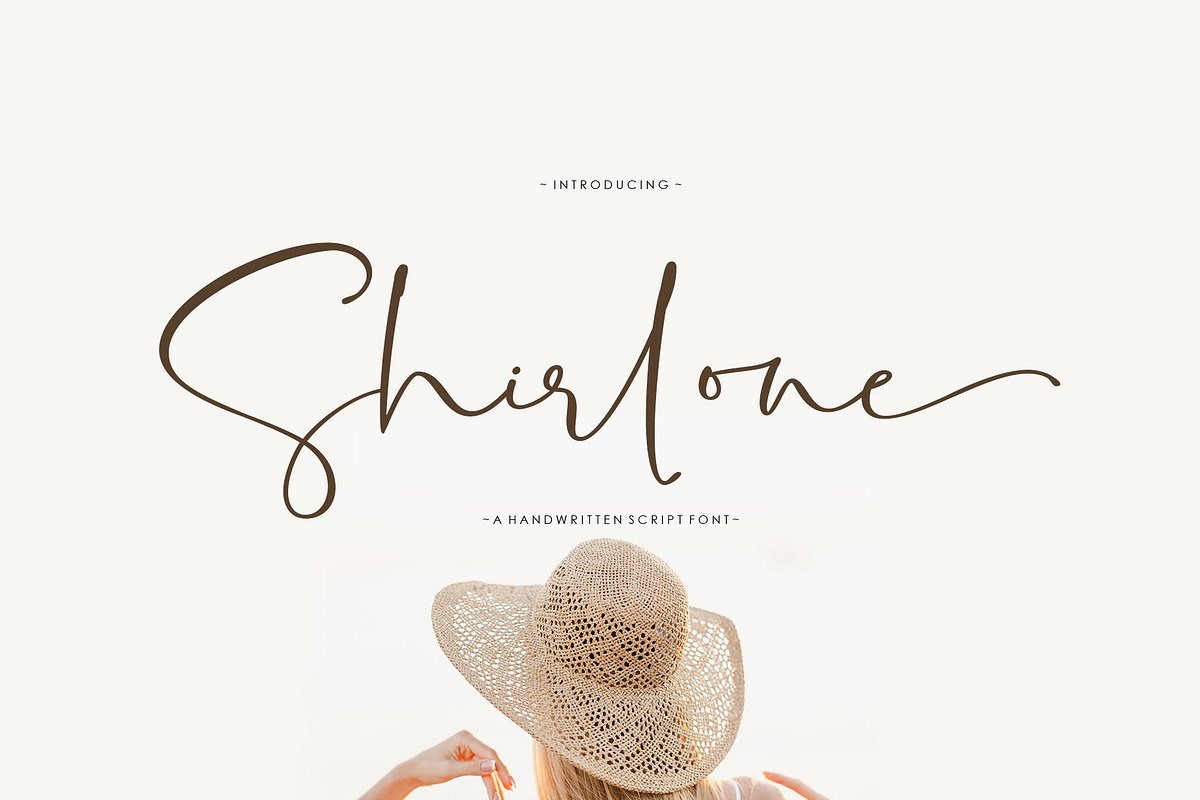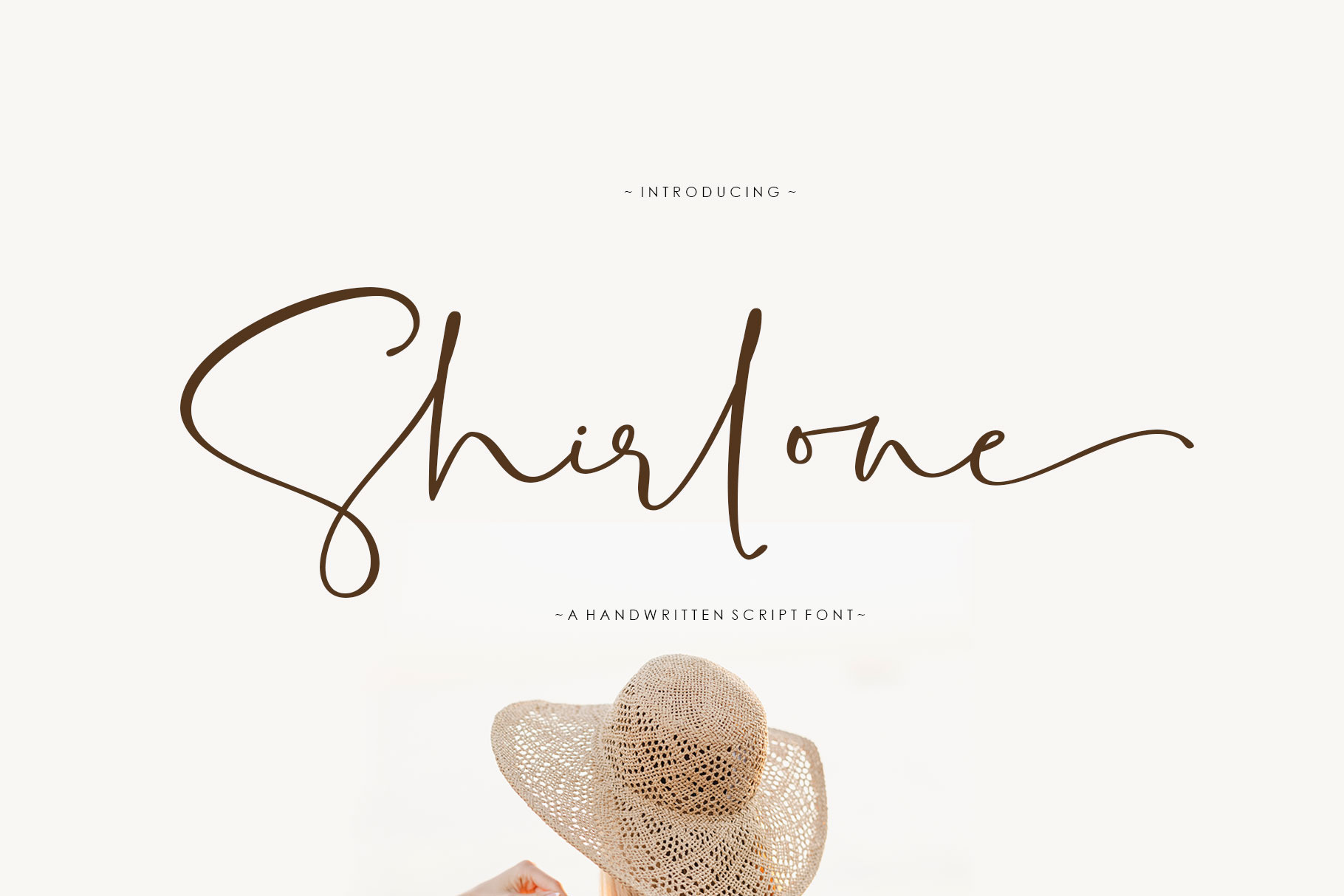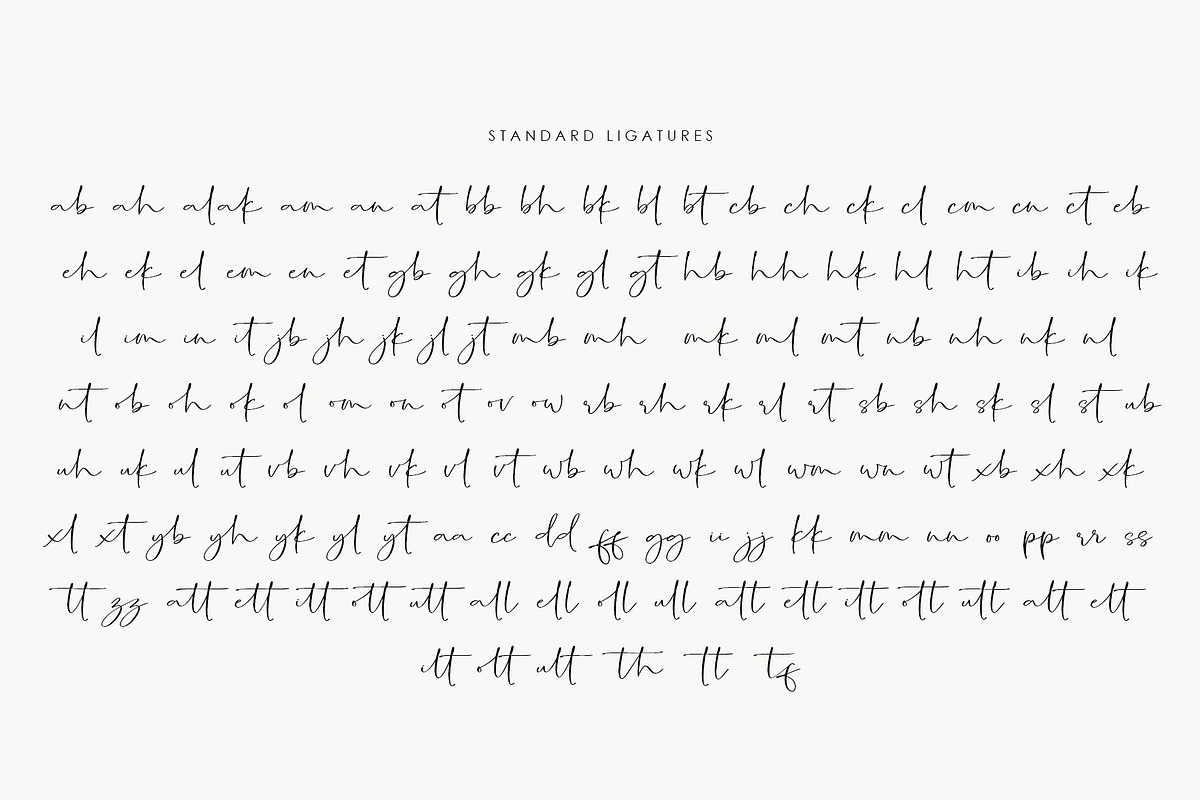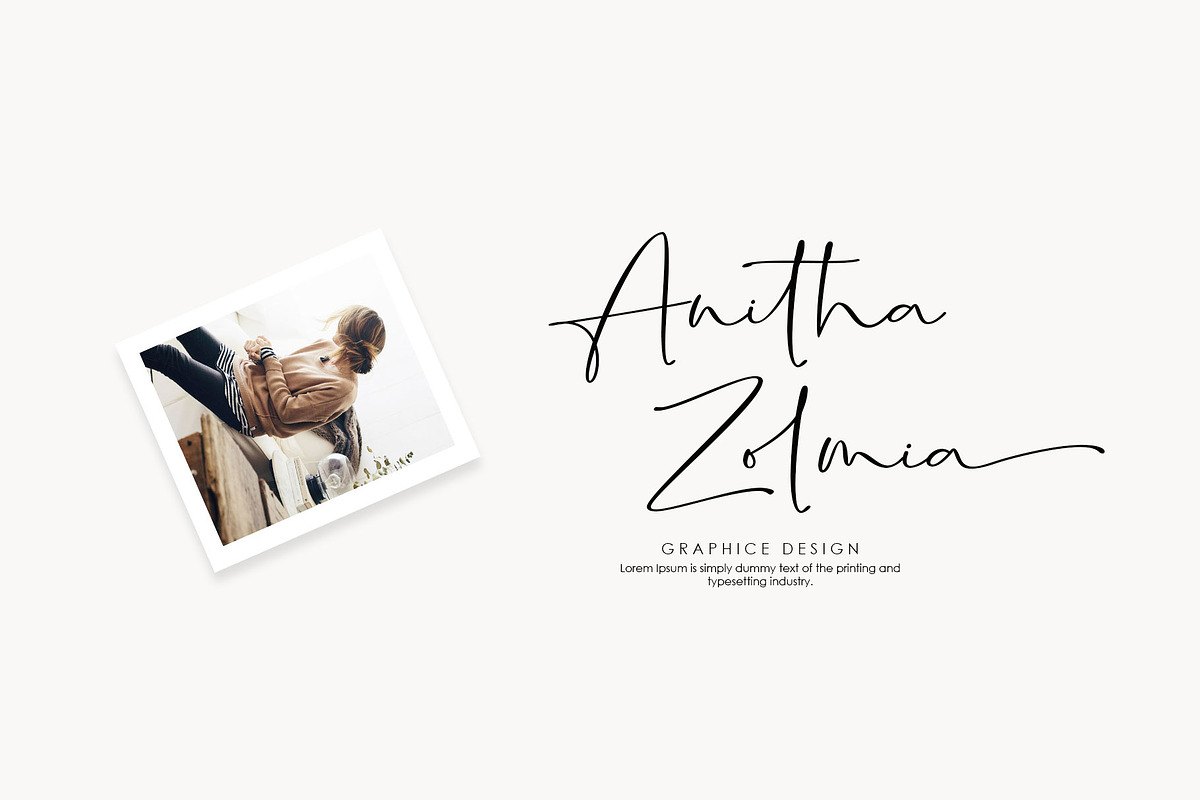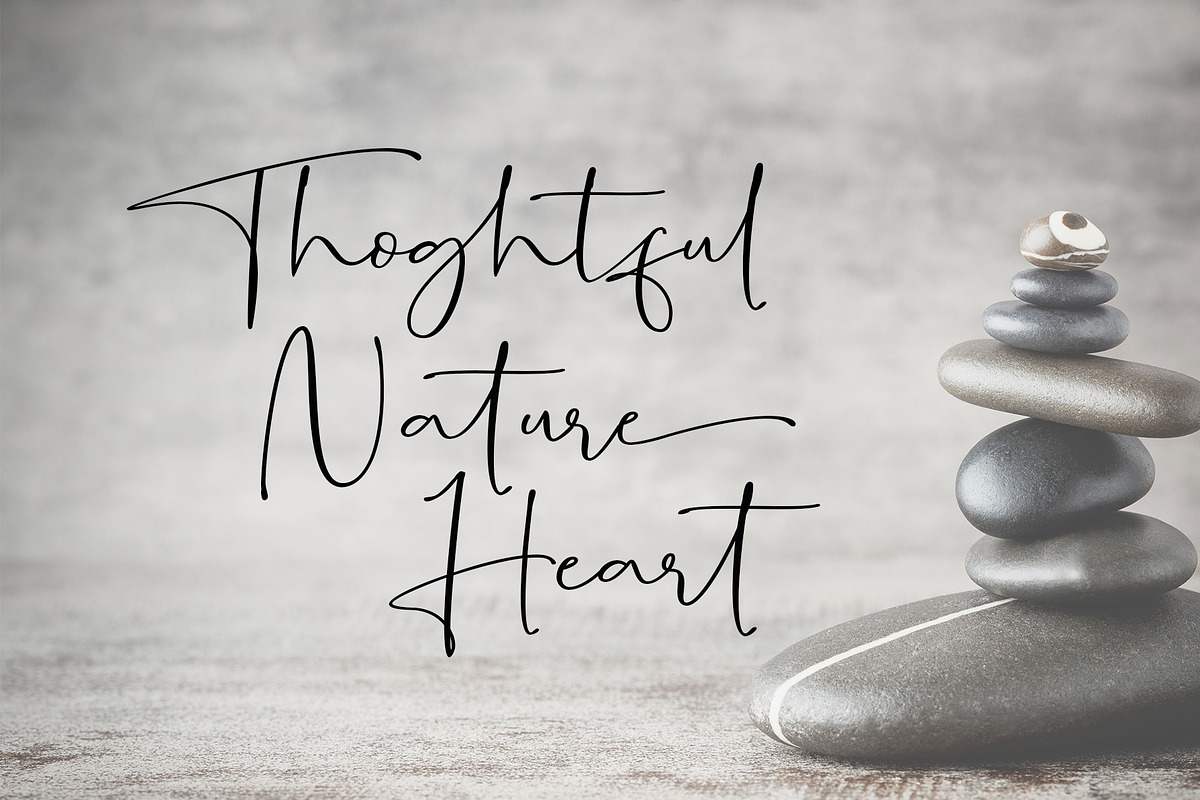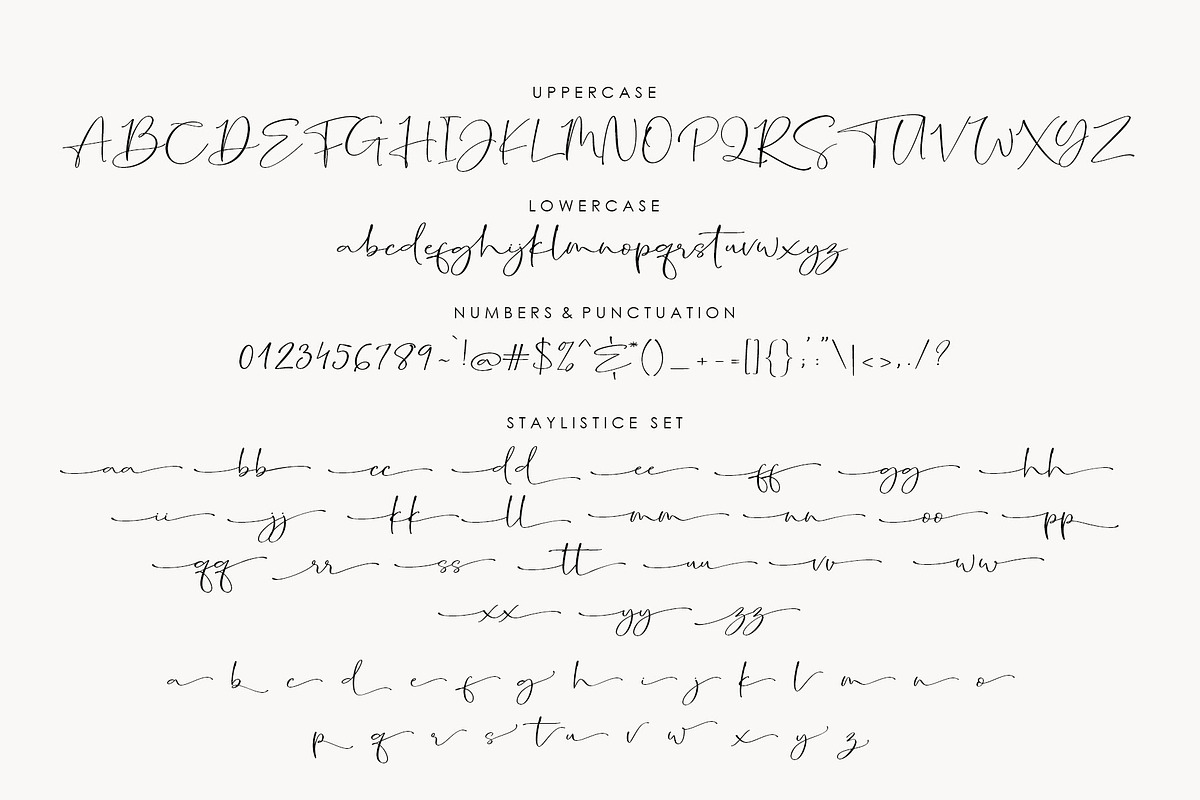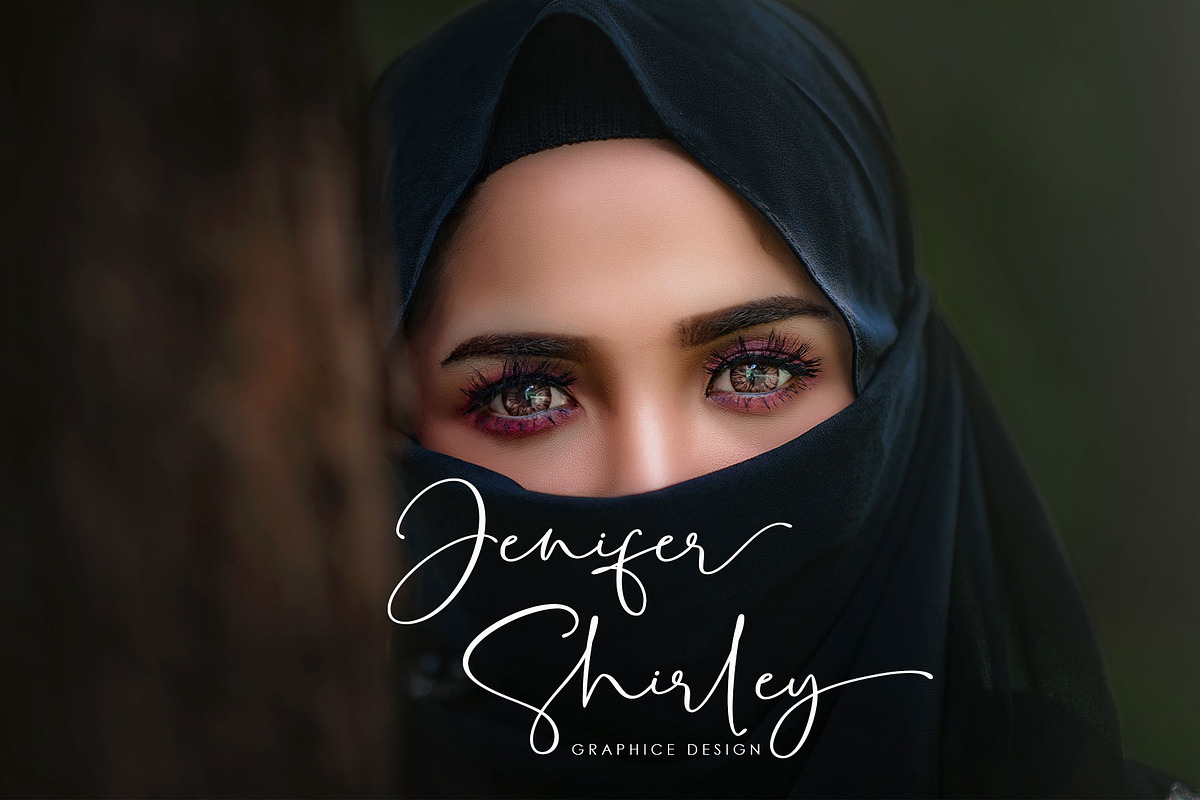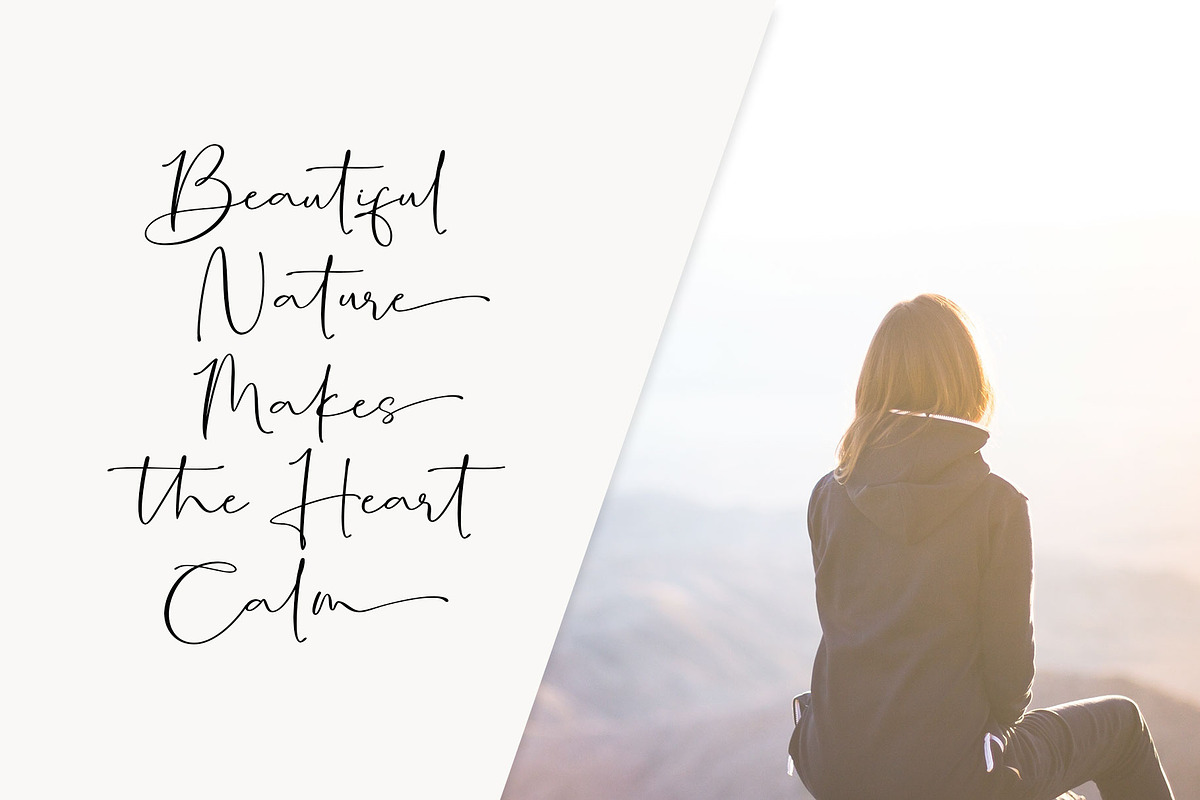
Shirlone Handwritten font
Shirlone Script is a thin and elegant handwritten font. Use it for any design projects that require a charming appearance! This font is PUA encoded which means you can access all of the glyphs and swashes with ease!